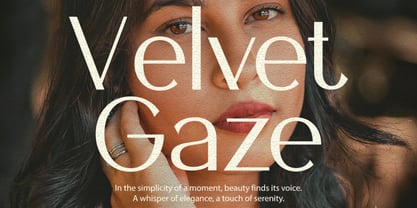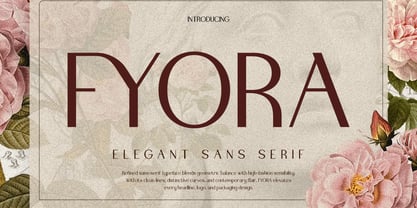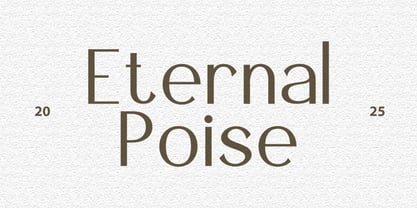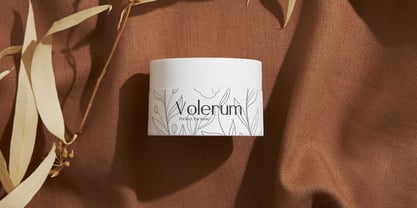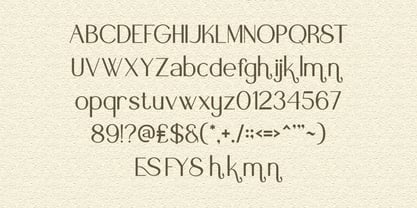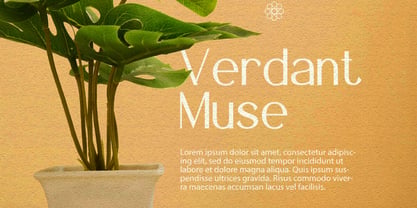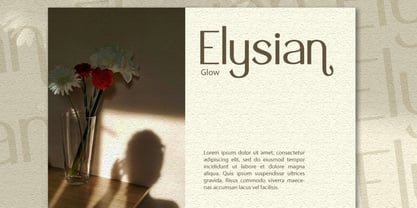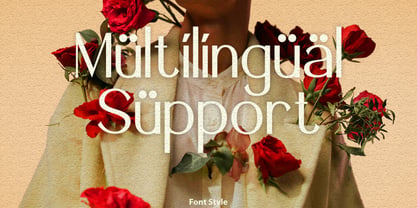
Fyora
Fyora is an elegant sans serif typeface crafted with precision and a touch of femininity. Its refined curves and clean structure make it perfect for high-end branding, editorial layouts, beauty packaging, and luxury logos. With a modern aesthetic balanced by soft flourishes and botanical undertones, Fyora delivers sophistication in every character. Ideal for designers seeking a timeless yet distinctive typeface for refined visual storytelling. Suitable for fashion branding, wedding invite, luxury logo, beauty product, editorial design, botanical theme, elegant packaging, romantic stationery, magazine cover, minimalist layout, feminine brand, floral concept, lifestyle blog, upscale label, signature text, social media graphic, high-end identity, perfume design, art book, modern print ads.